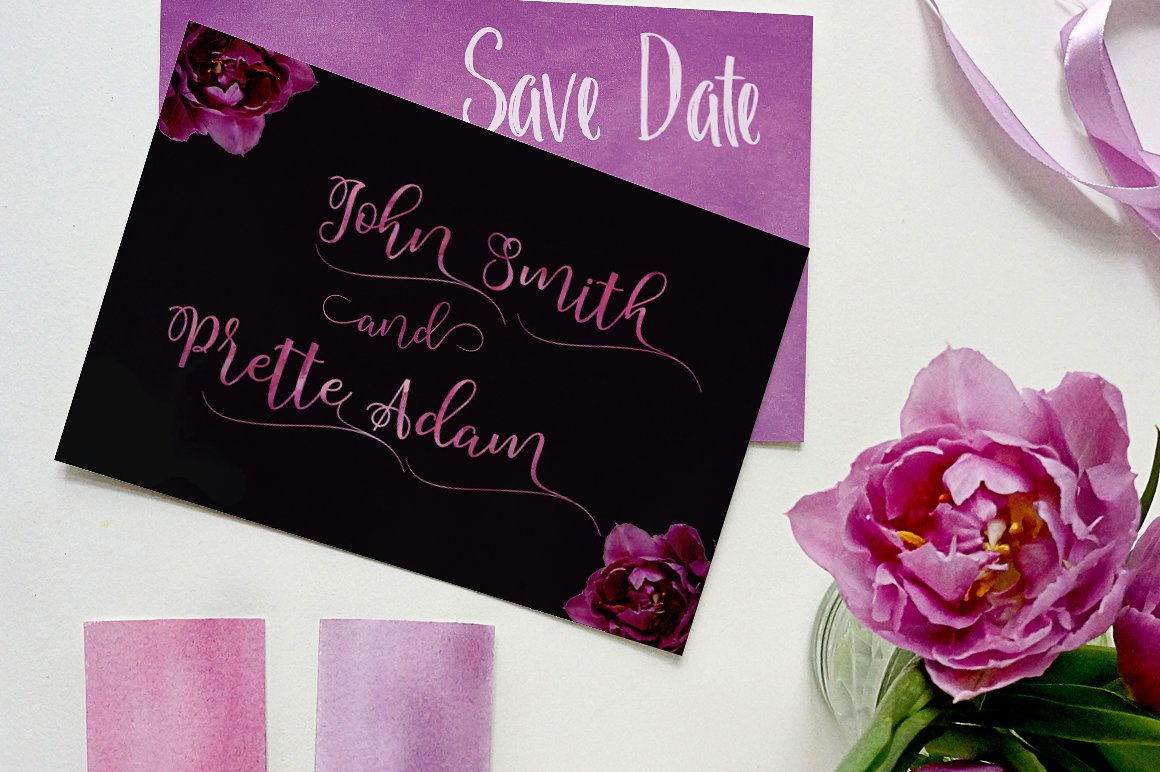
Beetle Duo
Font Duo (beetle and rantes) is a font that made the hand by having the character up and down like a dancer. Freestyle has a very unique style of calligraphy, it is very suitable for use in the work of modern design.